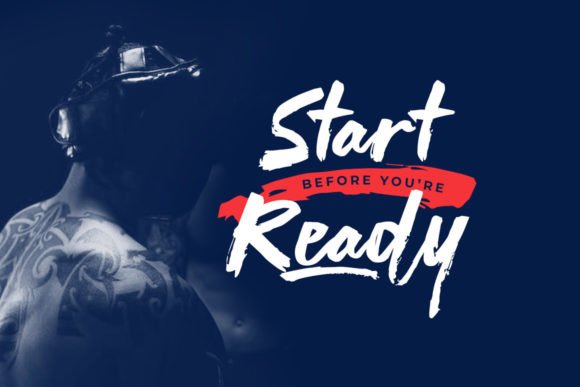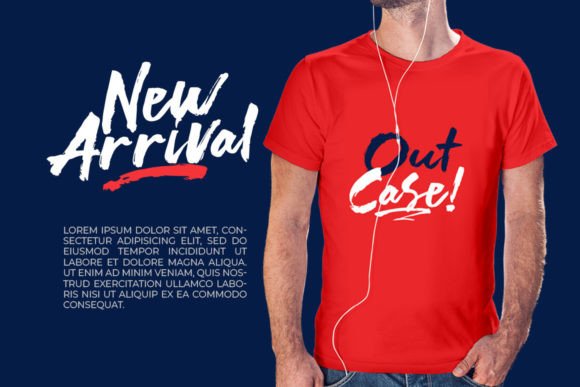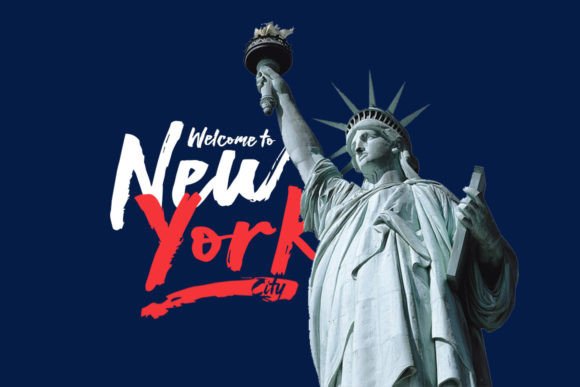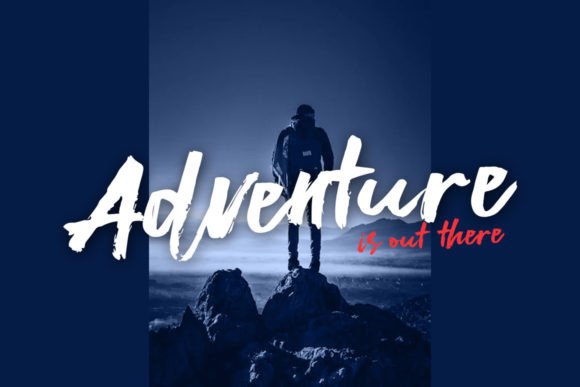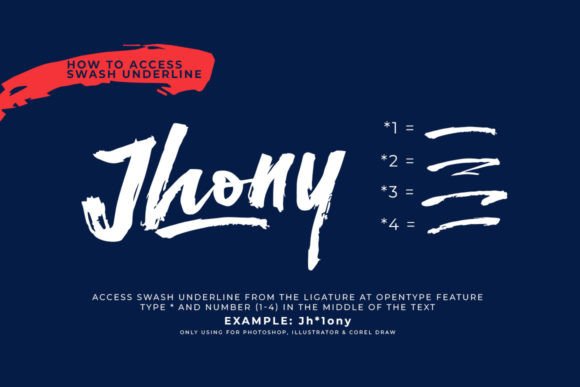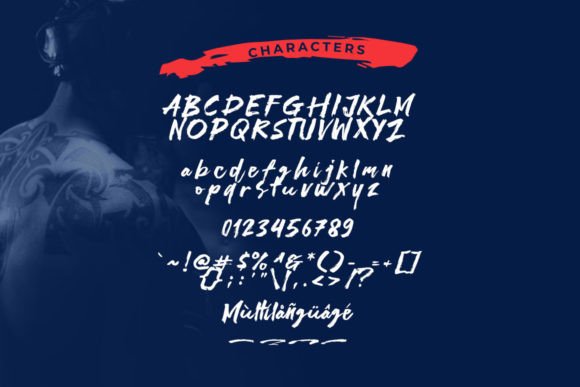
The Quest for the Perfect Font: How High Fighter Stole the Show
Ah, the eternal struggle of finding the right font for a design project! I recall a particularly frustrating moment when I was working on a poster for a local event. My client wanted something bold, quirky, and attention-grabbing, but I was stuck in a font rut. That’s when I stumbled upon High Fighter, a modern brush font that has since become a staple in my design toolkit.
An Honest Review: The Good, the Bad, and the Quirky
What I Love About High Fighter ✨
- 💥 **Unique brush strokes**: High Fighter’s irregular strokes give it a delightfully handmade feel that’s perfect for posters, logos, and other display designs.
- ✅ **High versatility**: This font is suitable for a wide range of projects, from magazines and book covers to banners and social media graphics.
- 🎨 **Customizable**: With OpenType features and glyphs, you can experiment with different styles and alternates to make your design truly one-of-a-kind.
Small Quirks and Limitations 🤔
- ⚠️ **Limited legibility**: As with many display fonts, High Fighter can be tricky to read in smaller sizes or at a distance. Use it wisely!
- 😐 **Occasional inconsistencies**: Some users have reported minor inconsistencies in the font’s kerning and spacing. However, these can often be adjusted in your design software.
The Story Behind High Fighter: A Designer’s Inspiration
High Fighter was created with the goal of crafting a unique, modern brush font that would inspire designers to create bold, eye-catching designs. With its irregular strokes and customizable features, High Fighter is the perfect tool for designers looking to add a touch of personality to their work.
| Font Name | High Fighter Font |
| Author | Khurasan |
Q: What type of designs is High Fighter best suited for?
A: High Fighter is perfect for posters, logos, magazines, book covers, banners, and any other design project that requires a bold, attention-grabbing font.